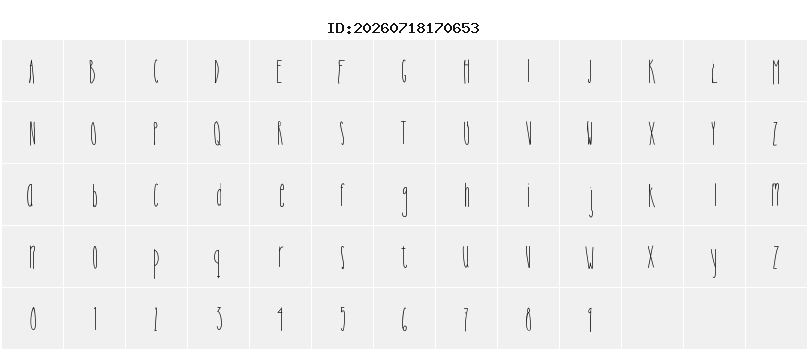
Cutiepie Preview
• Font Name: Cutiepie
• Full Font Name: Cutiepie
• PostScript Name: Cutiepie
About Cutiepie.ttf
Cutiepie.ttf is a modern, elegant sans-serif font designed for ultimate readability and visual harmony. Perfect for branding, headlines, web design, and print materials.